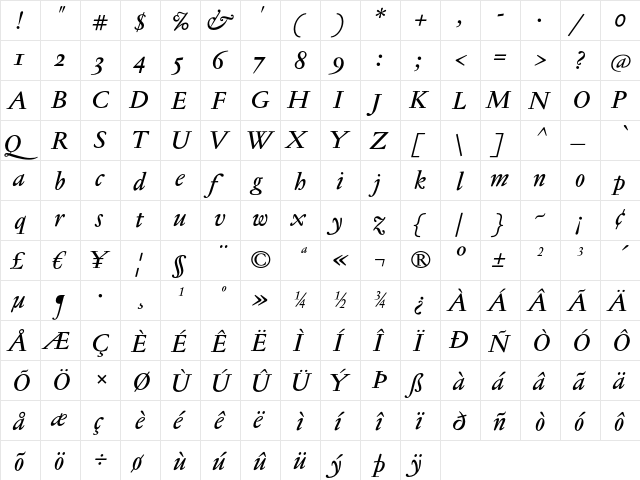
Jannon Text Med OSF Italic Font Preview
Jannon Text Med OSF Italic
Jannon Text Med OSF Italic Font Details
Design Context for Jannon Text Med OSF Typeface
Jannon Text Med OSF takes a measured approach to typography — its balanced proportions and neutral character make it a reliable workhorse for both digital and print work. The dynamic lean of this cut emphasises speed and emphasis in any layout.
Pro Tip: Use Jannon Text Med OSF for emphasis, pull quotes, and subheadings where its slanted energy can add rhythm to the layout.